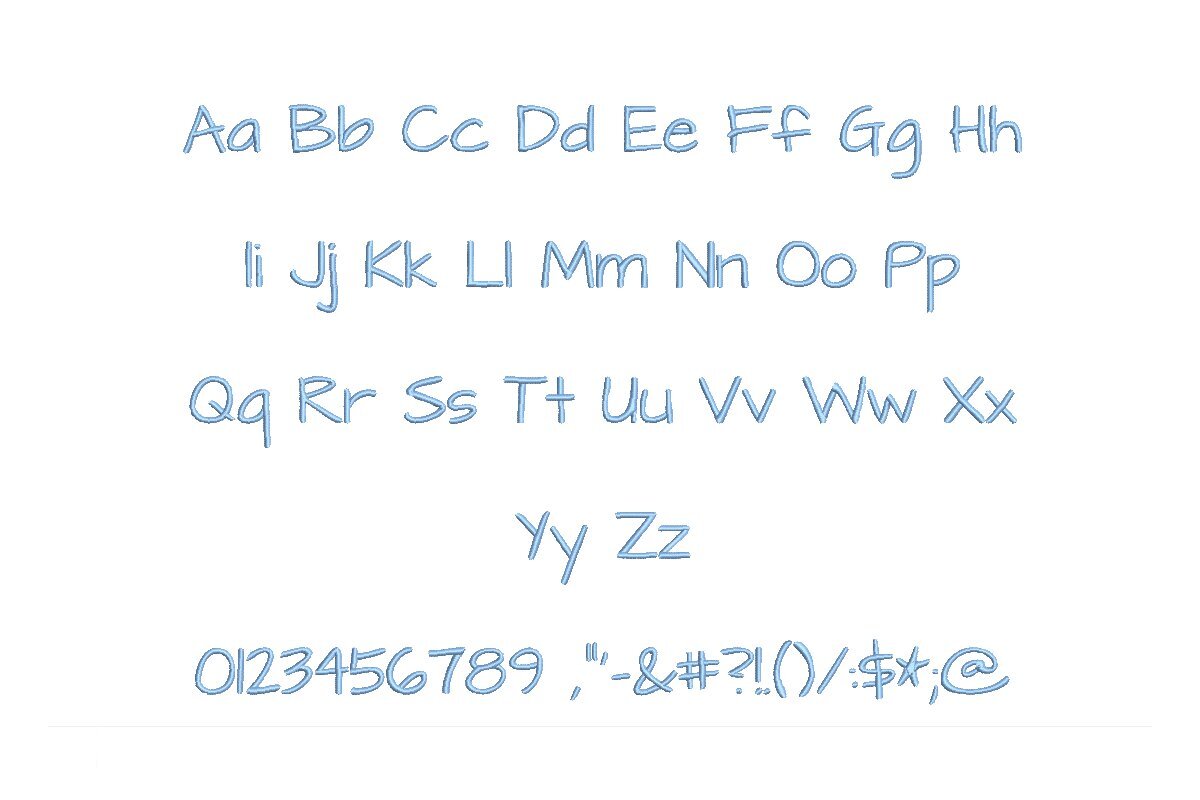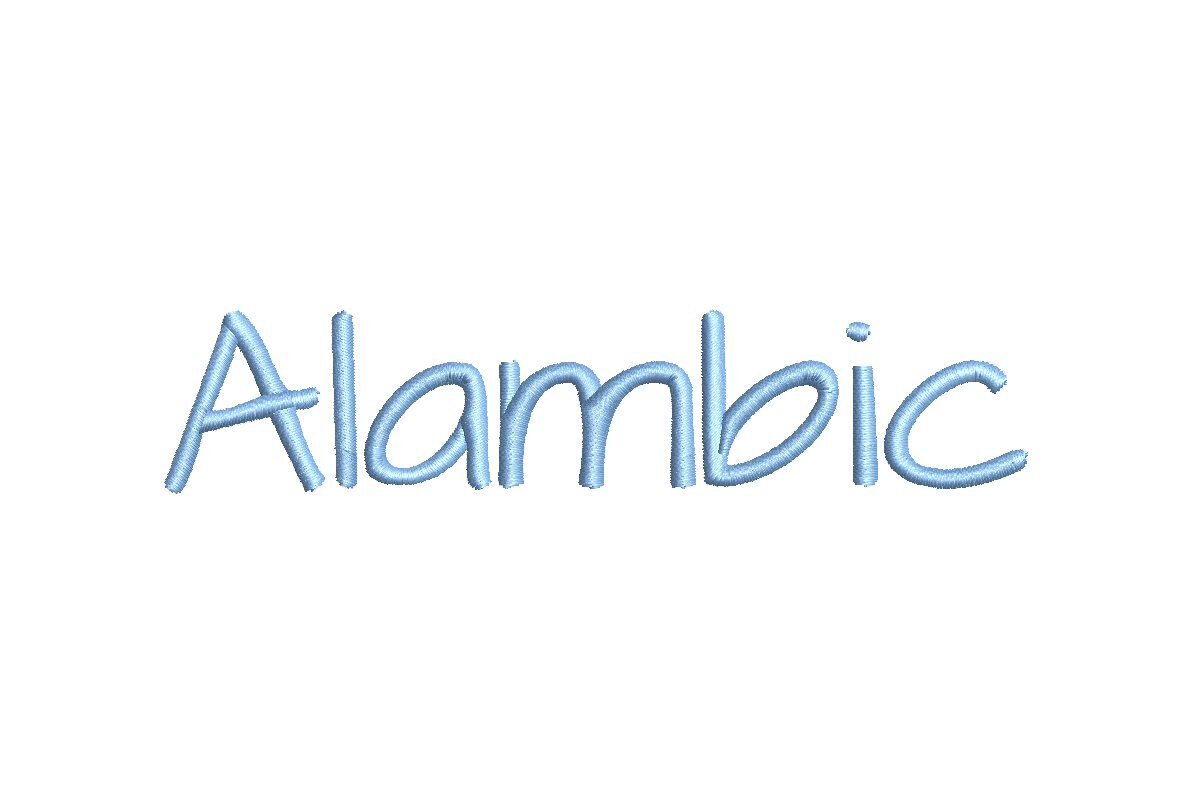
Alambic ESA machine embroidery font alphabet preview
Alambic ESA machine embroidery font additional lettering sample
Alambic ESA Font
Discover the Alambic ESA Font – Your Embroidery Masterpiece Awaits! Meticulously designed for compatibility with Wilcom Studio e4.5.6 and Hatch 3 versions onwards, this font is your key to embroidery excellence. Immerse your designs in the timeless allure of Alambic's graceful curves and fine details. Whether you're an embroidery professional or an enthusiast, Alambic ESA unlocks a realm of creative opportunities. Seamlessly integrate with the latest software, saving you valuable time while ensuring precision and perfection in every stitch. Elevate your embroidery projects and harness the potential of Alambic ESA Font. Don't wait; unlock your design's true potential now!